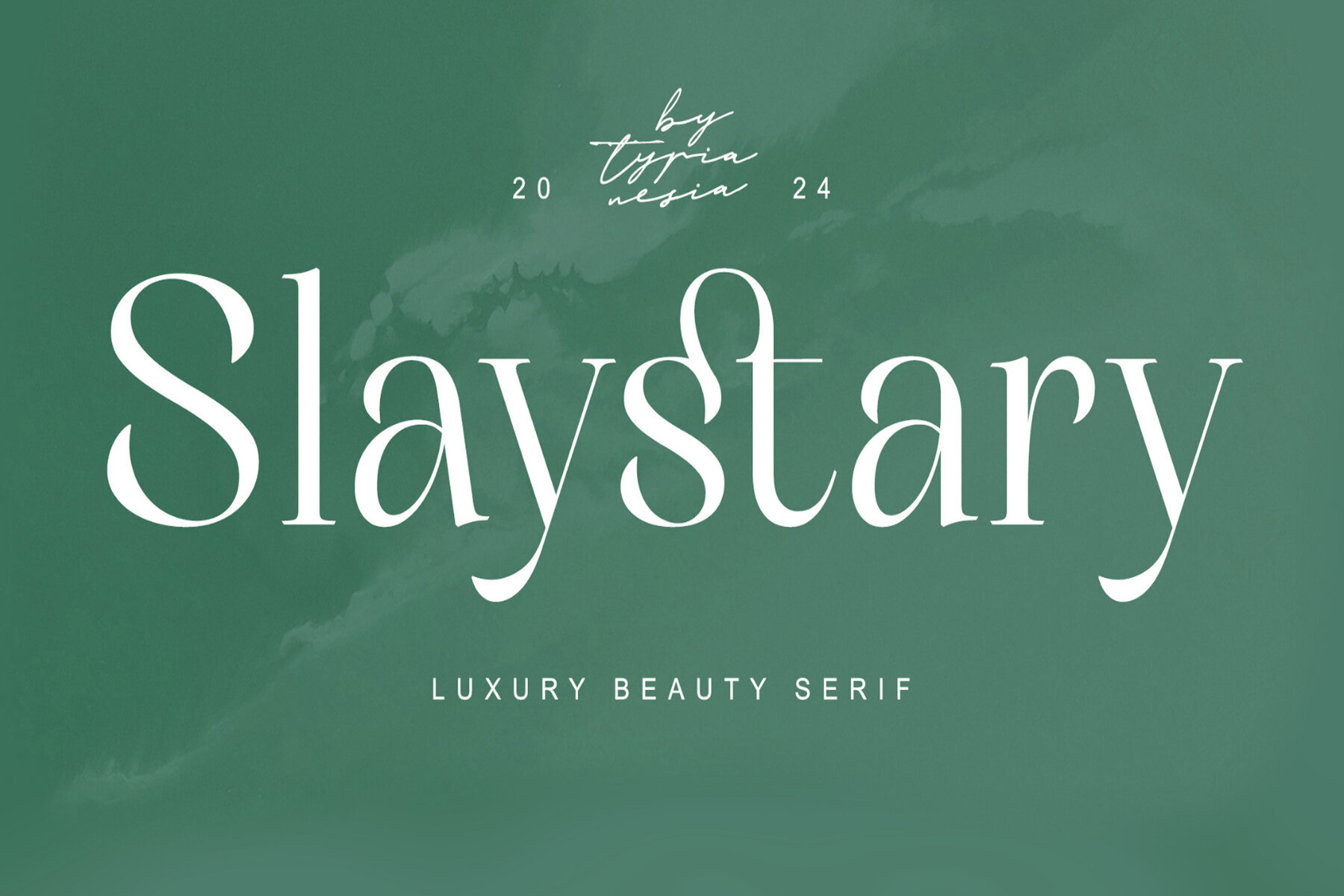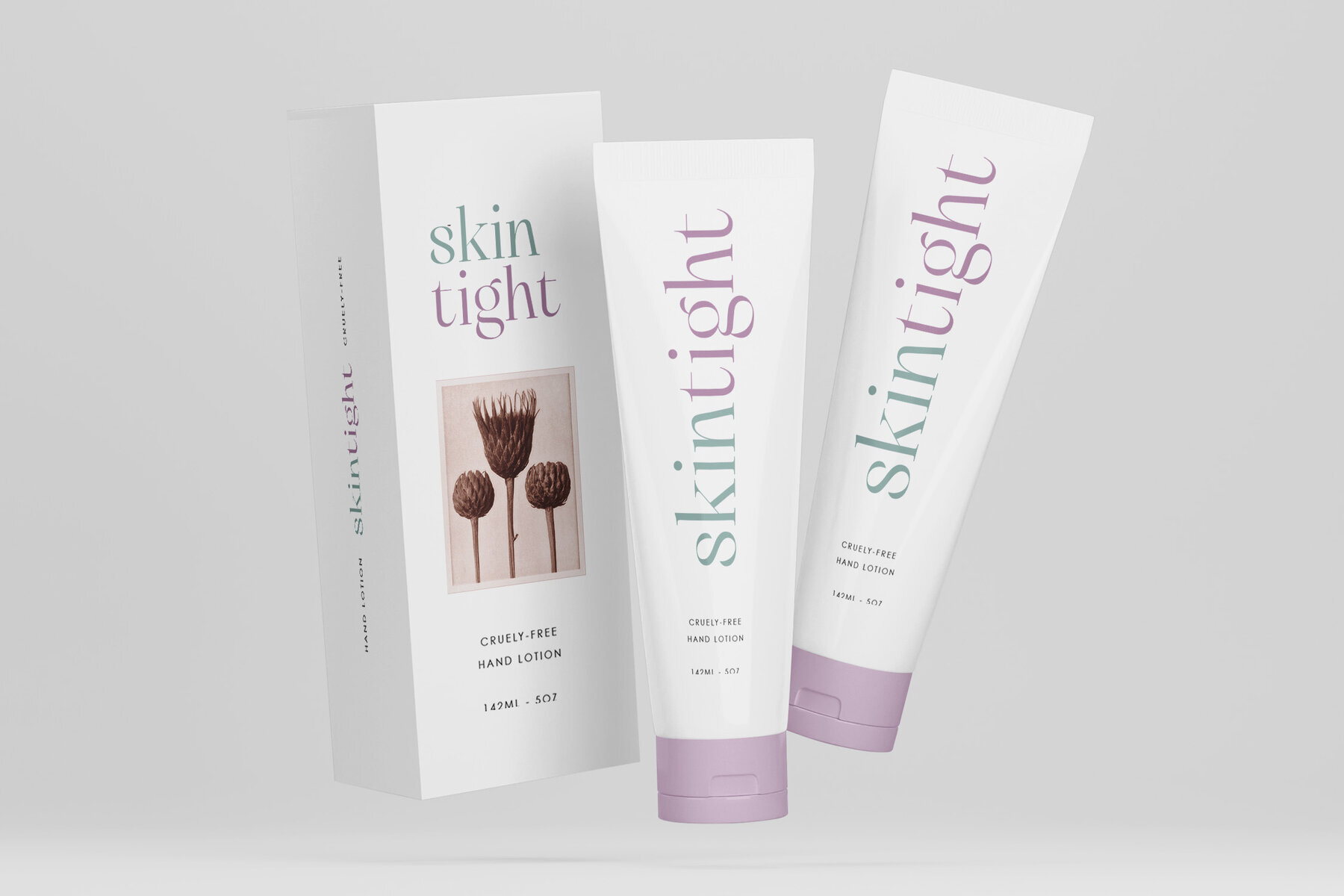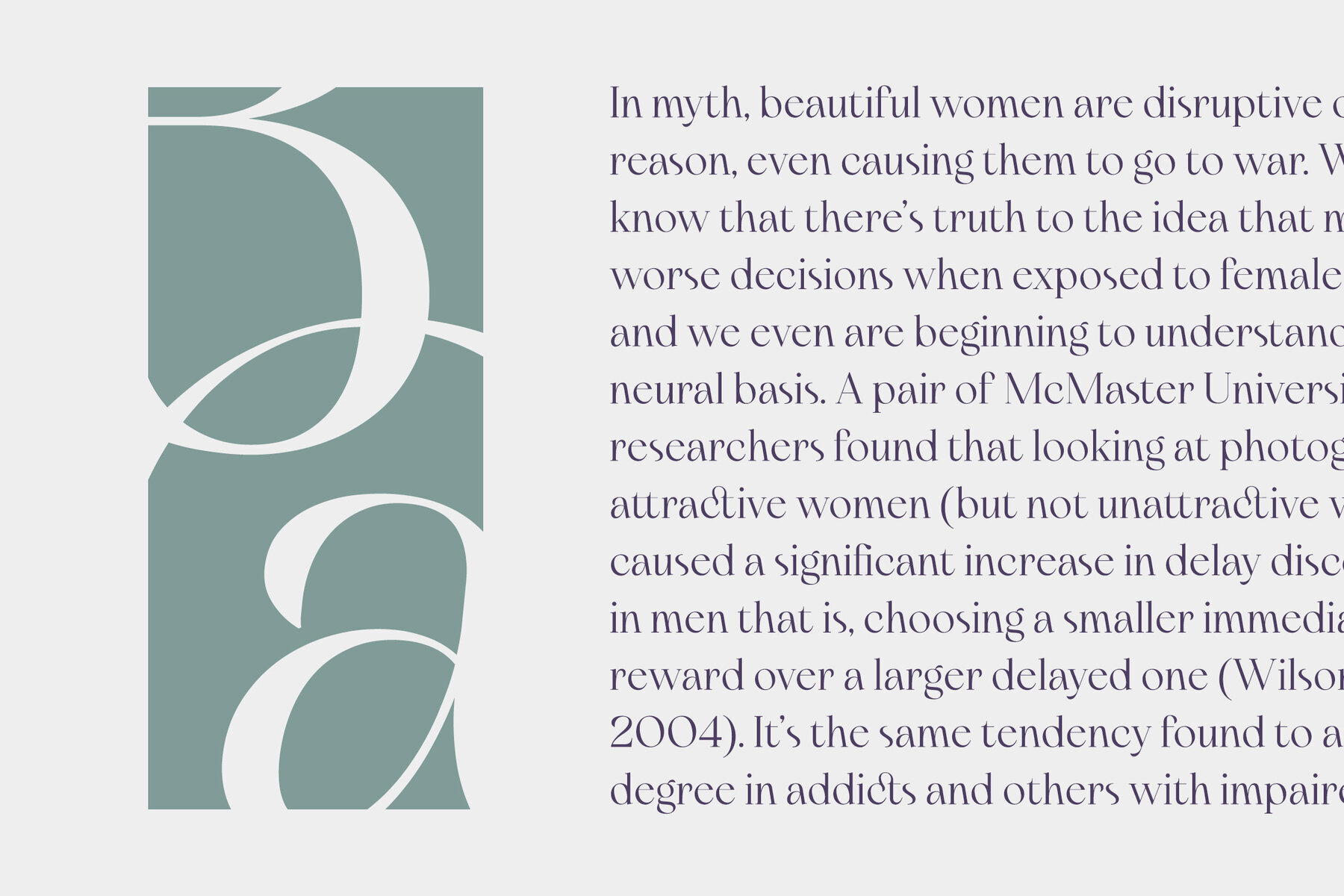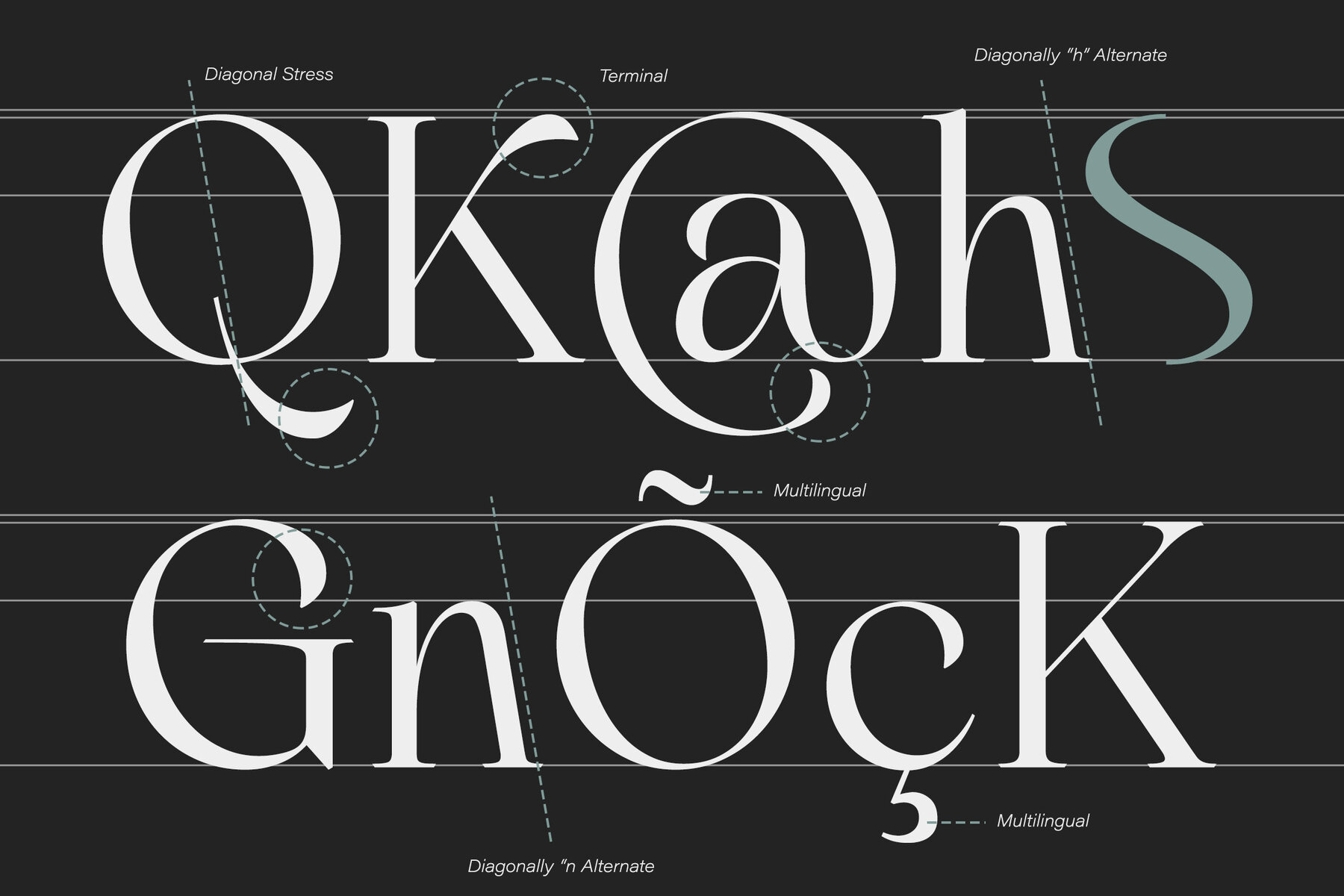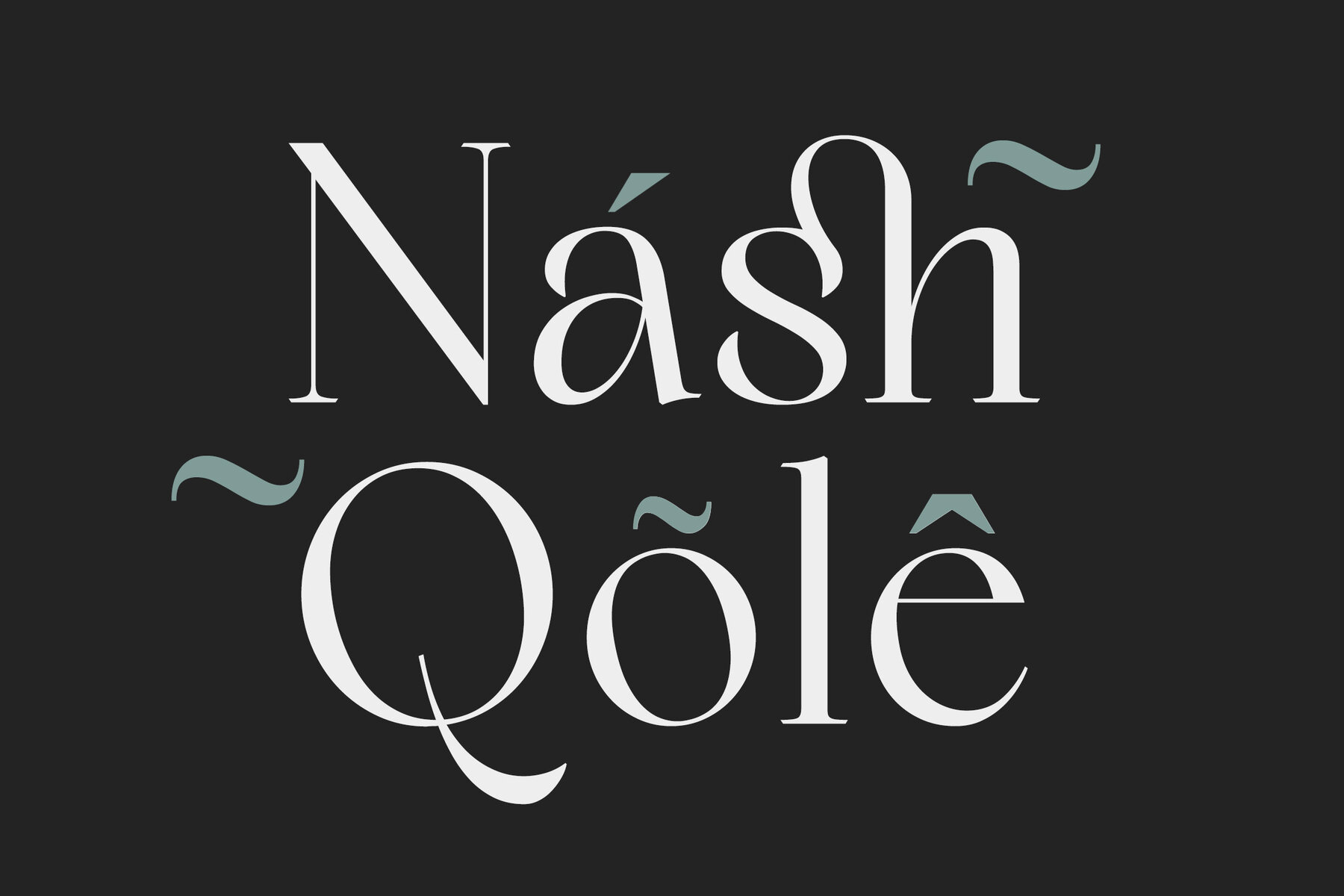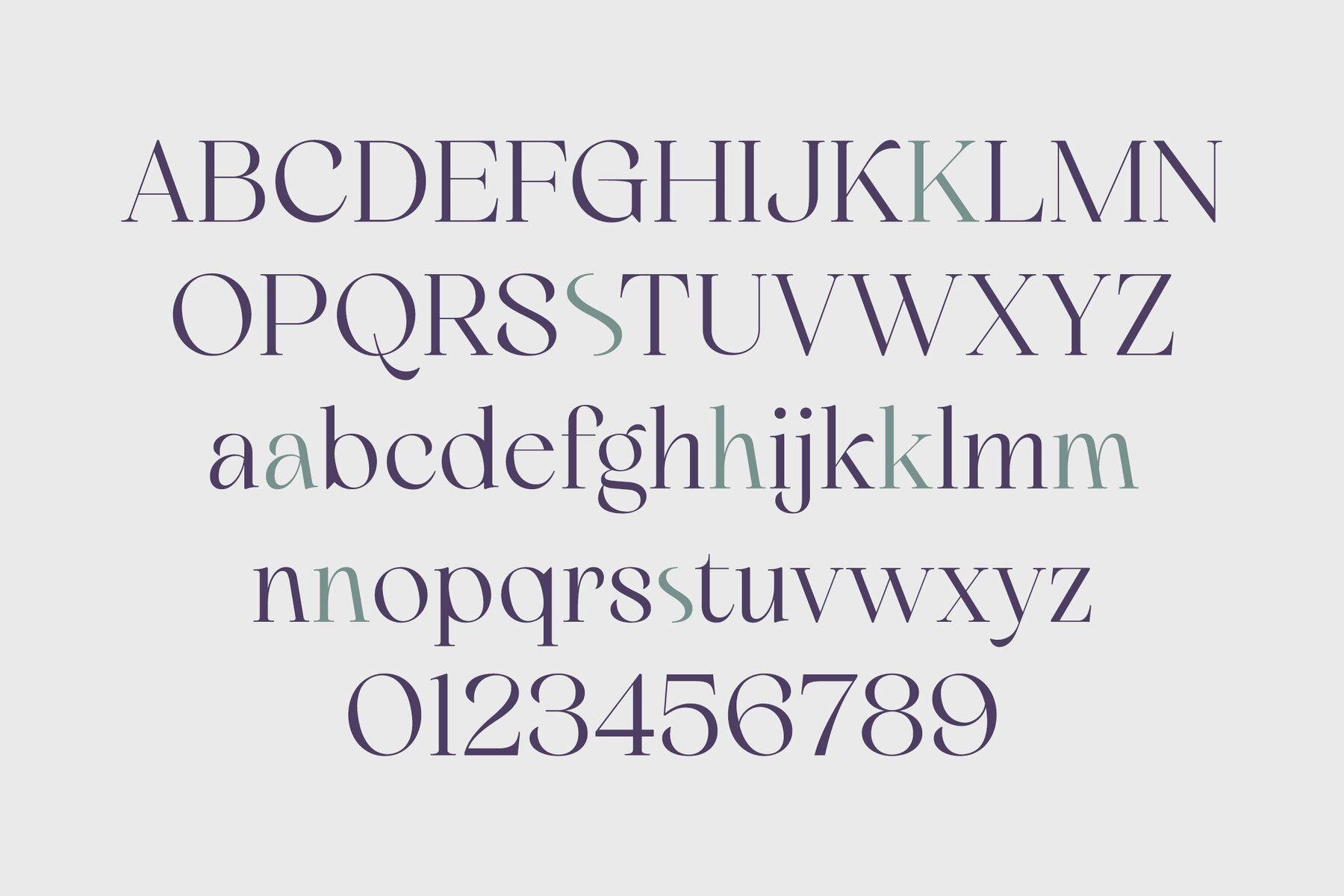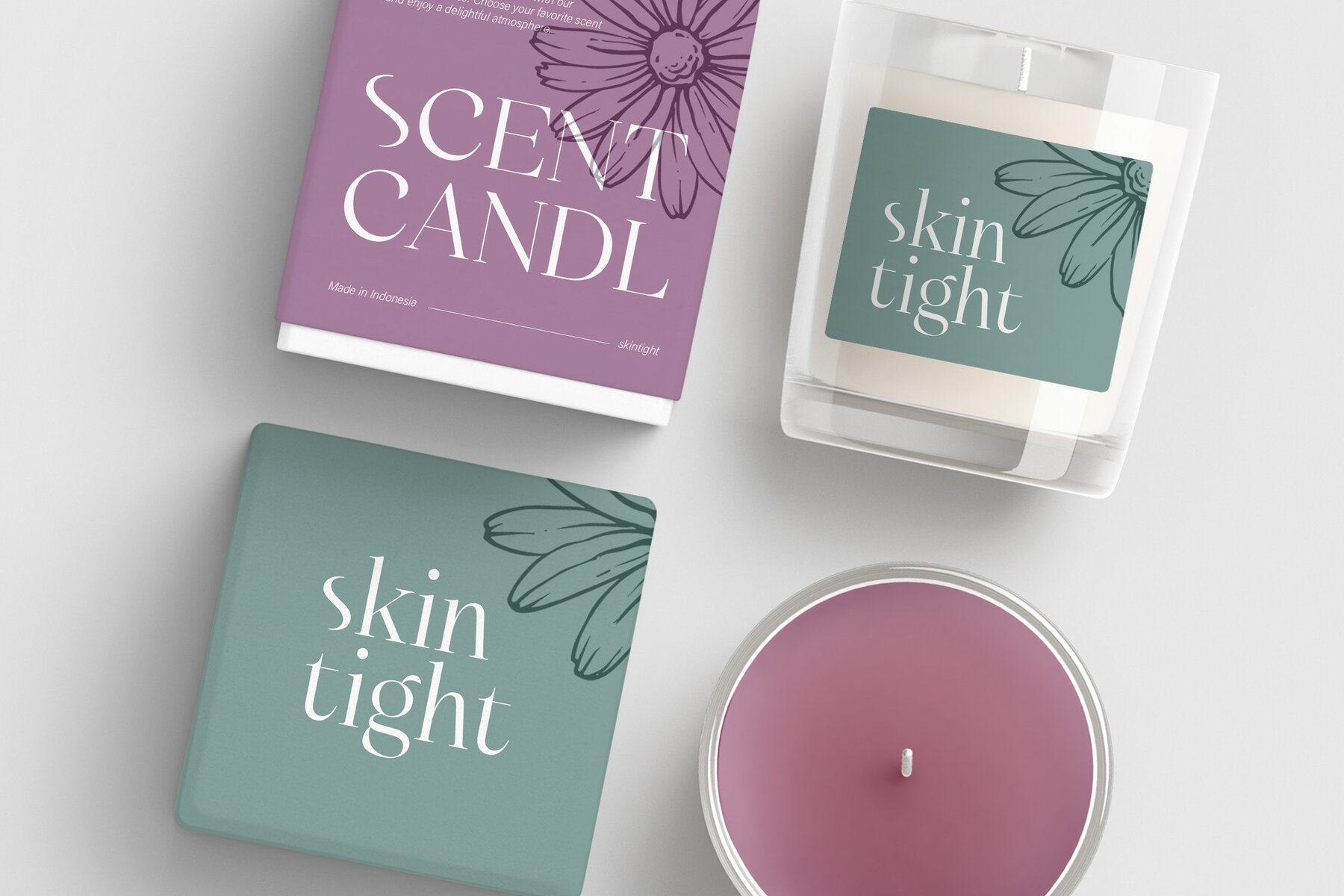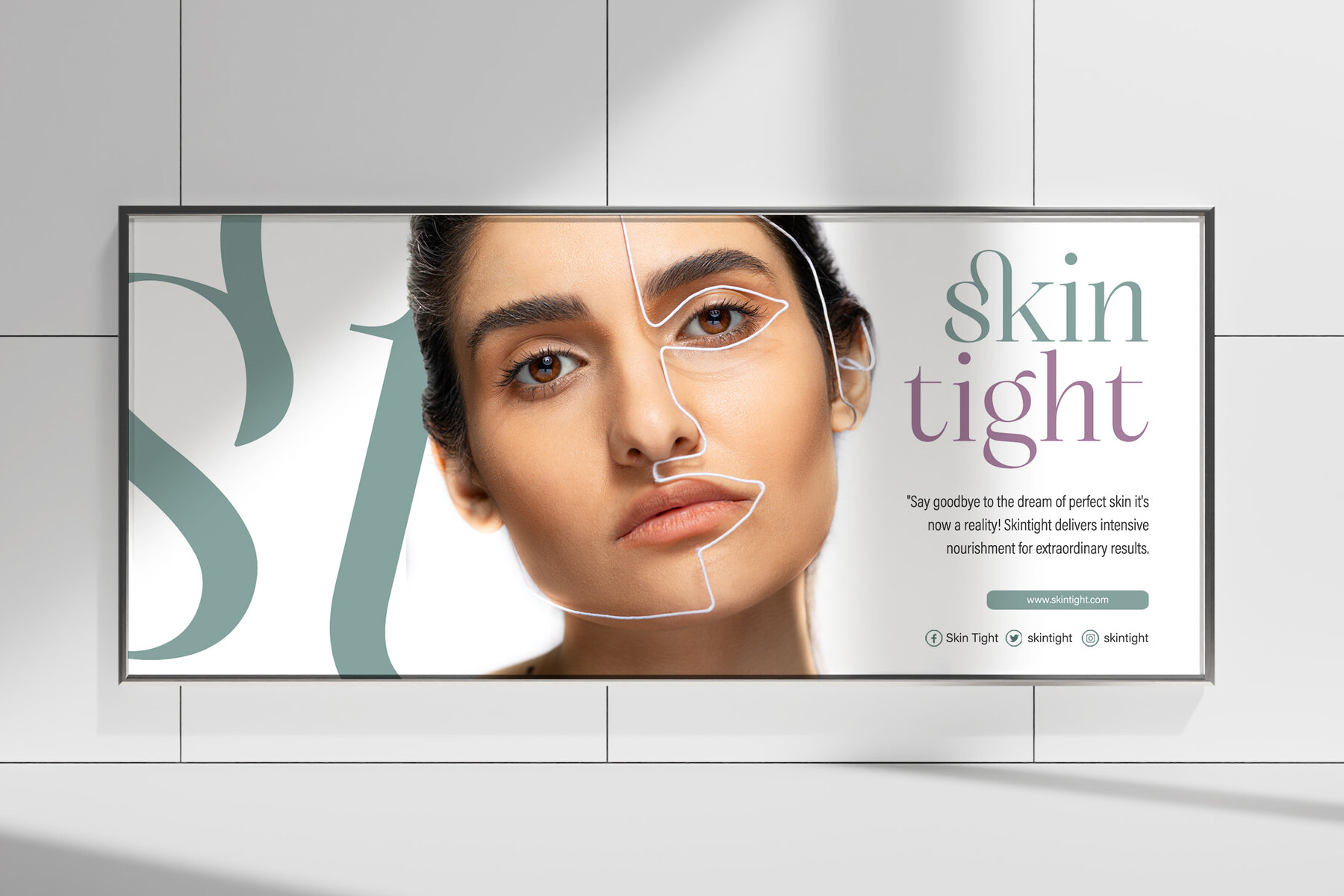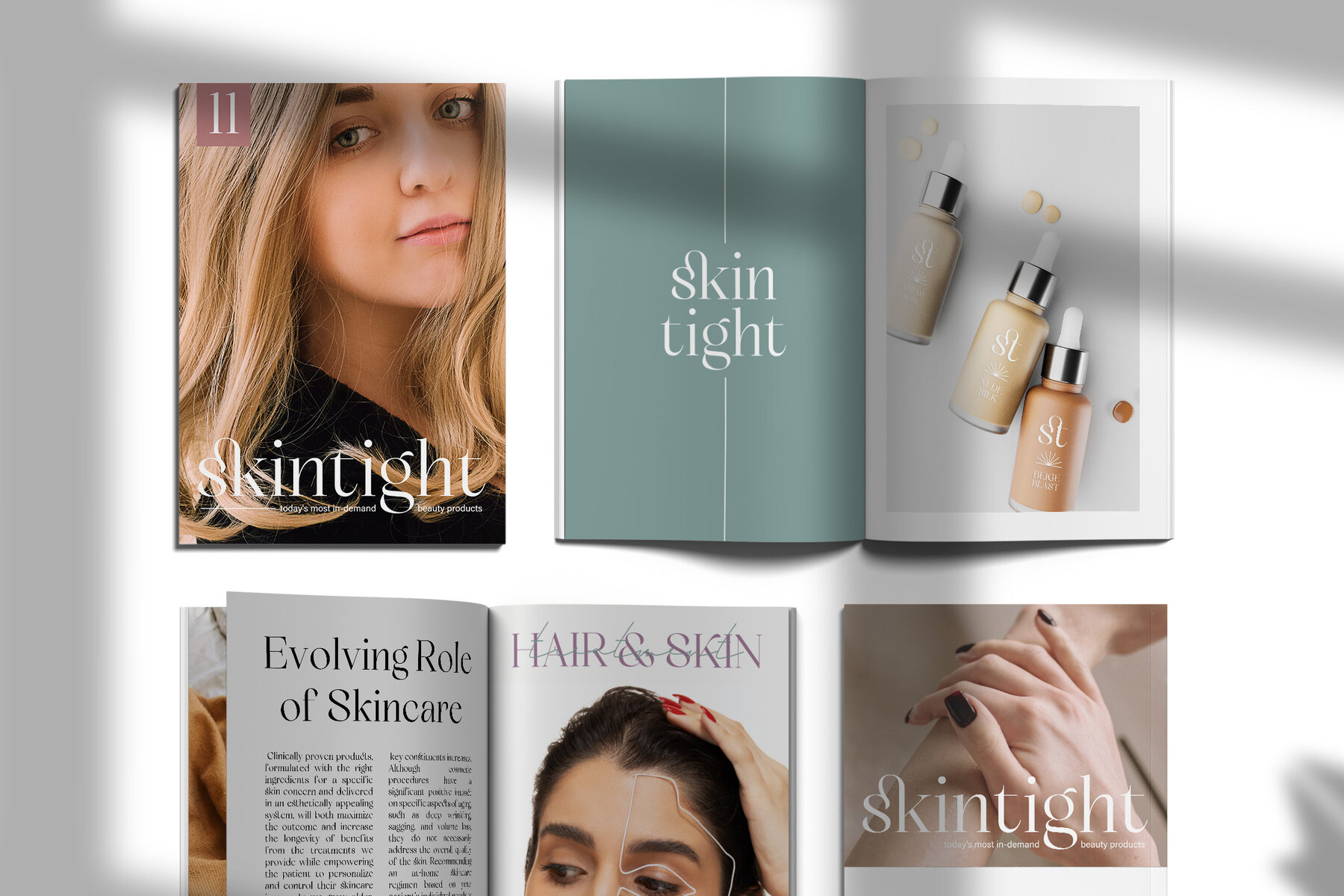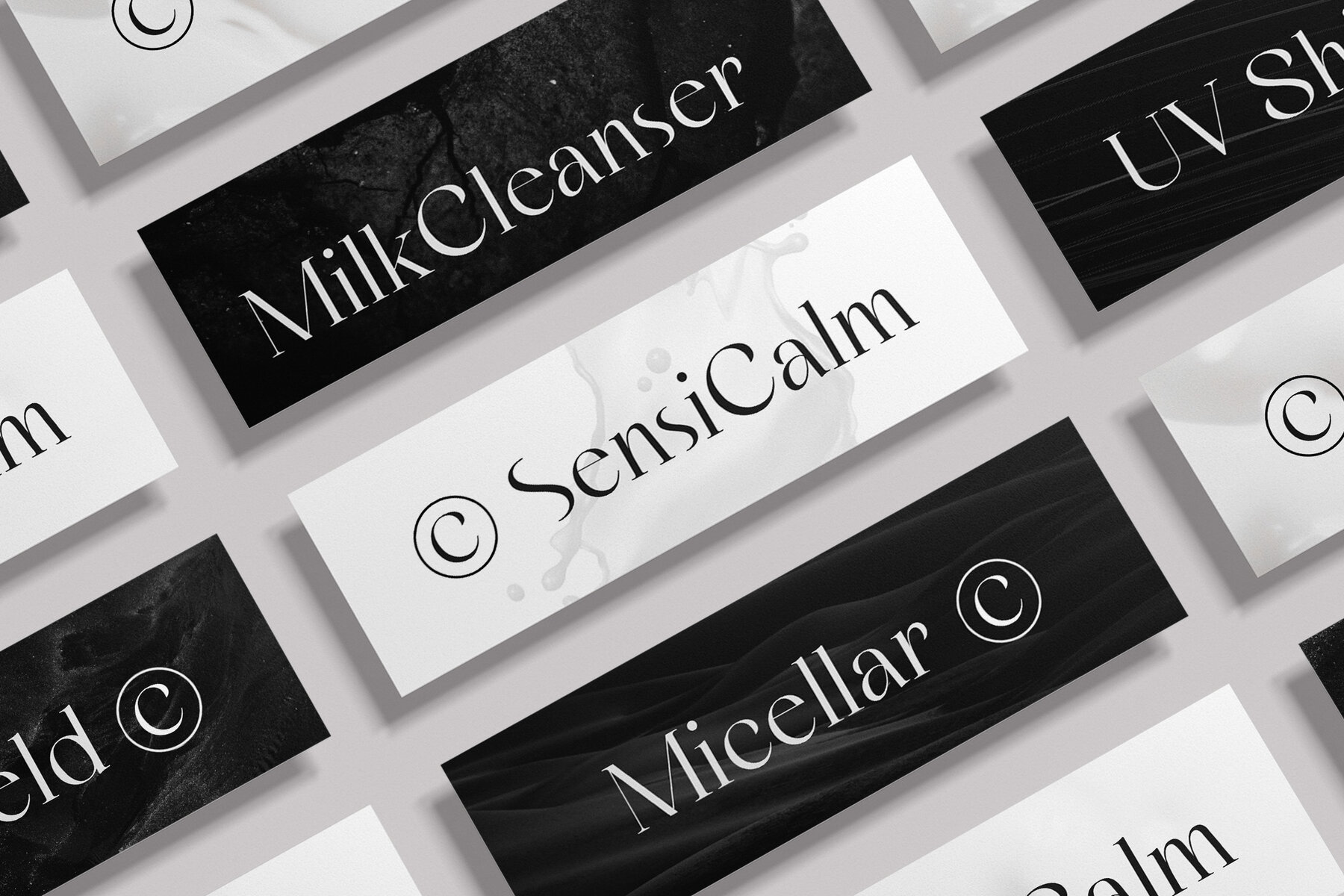
Slaystary Font
Slaystary Regular
Slaystary embodies the epitome of luxury beauty with its exquisite serif font, elevating every detail to a realm of sophistication. The design seamlessly blends opulence and beauty, creating a timeless aesthetic. Ideal for premium beauty brands, Slaystary's serif font adds a touch of class to cosmetic packaging, promotional materials, fashion labels and apparel, jewelry and accessories, spa and wellness Centers, use the font in branding materials for high-end spas. You can also apply this font for event invitations, fine dining menus, hotel and resort branding, magazine and editorial design, wedding stationery, and any visual content seeking to convey luxury and beauty. Slaystary features captivating ligatures that seamlessly intertwine characters, enhancing the font's visual allure. It encompasses Uppercase and Lowercase letters, Punctuation marks, Numerals, and comprehensive Multilanguage Support, ensuring seamless integration into a variety of design contexts.